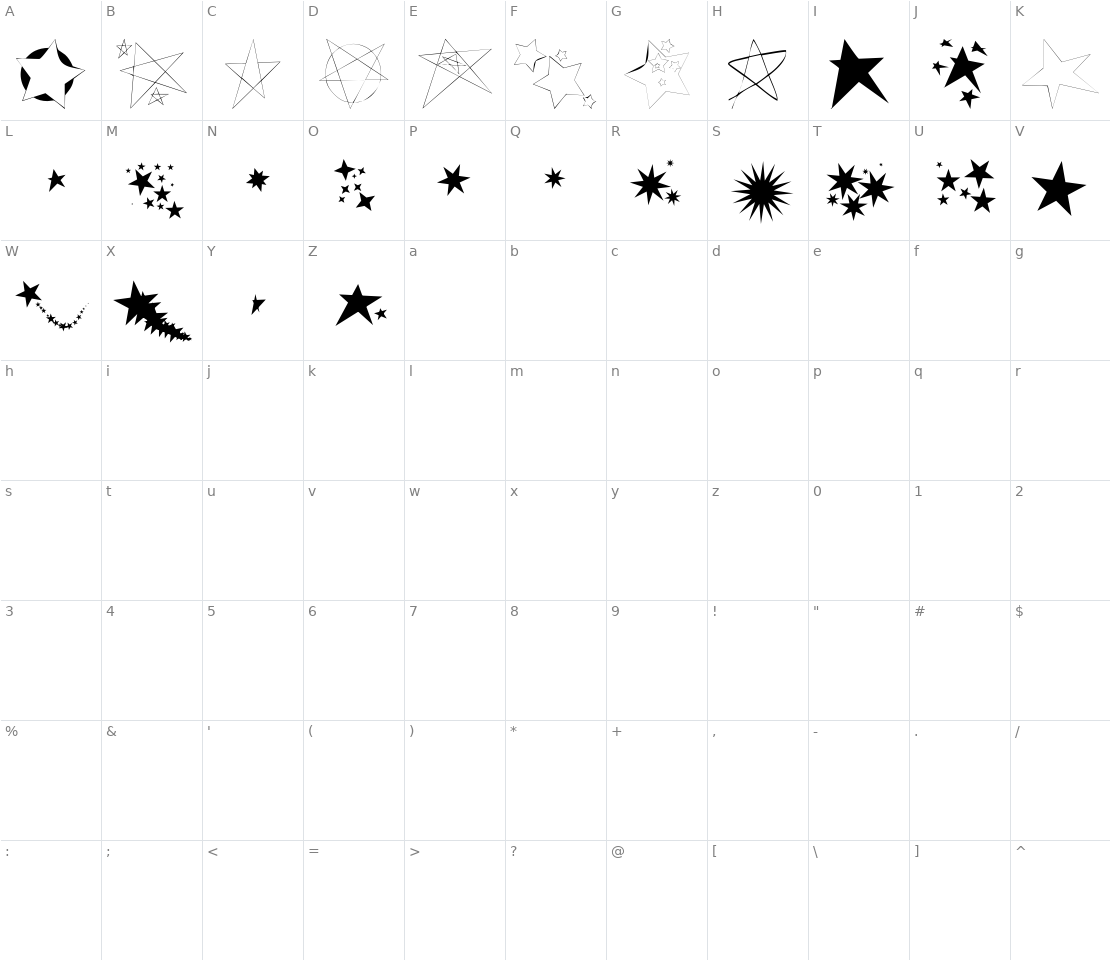
Freaking Stars
Freaking Stars is a dingbat font from Spork Thug Typography made up entirely of star and celestial shapes in varying styles, from simple geometric outlines to more ornamental, decorative forms. Useful for adding visual accents to posters, invitations, or borders without reaching for clip art.